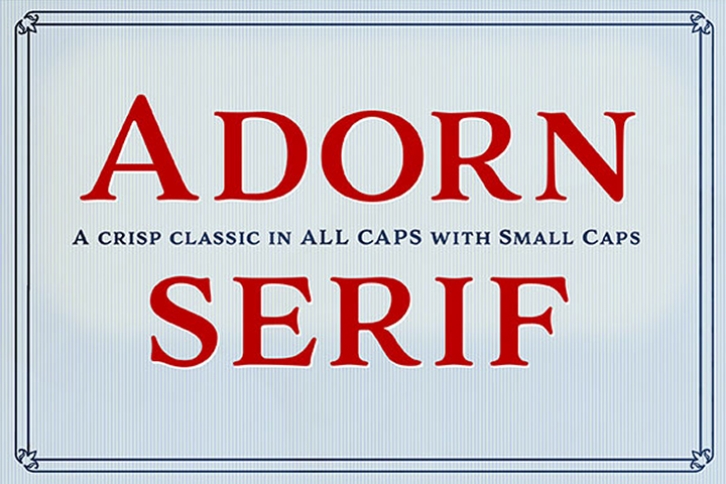
Adorn Smooth Serif is a trendy and unique font with an authentic style. It was designed by Laura Worthington Type and it's a great choice for creative people who need such a font. It was released on July 7, 2016 and the file size is 20.34 MB. Adorn Smooth Serif will add an organic vibe to any design idea!